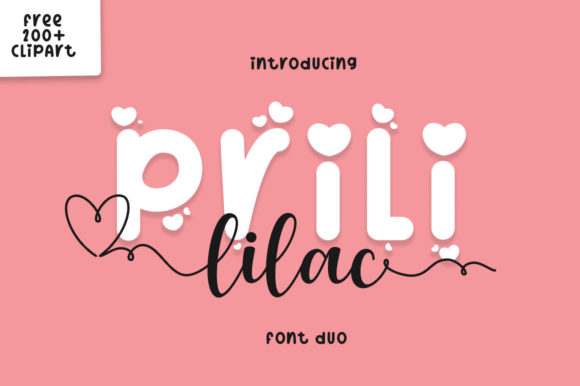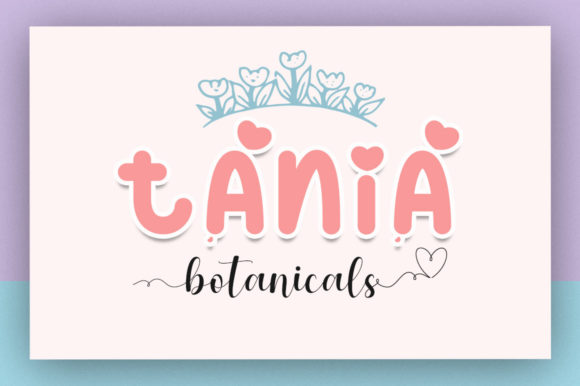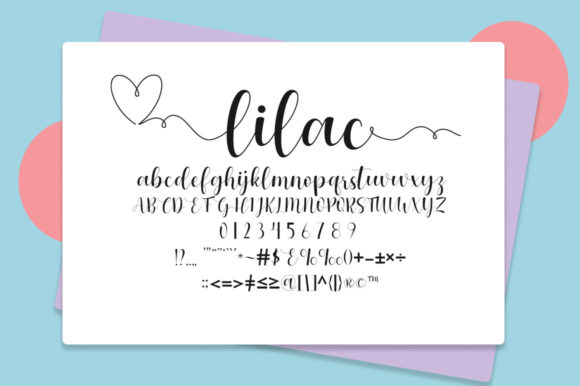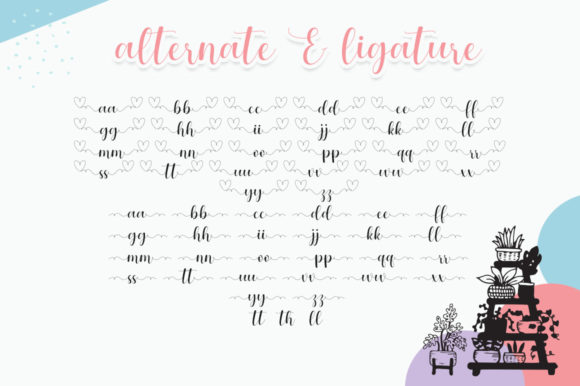
Lilac Prili Font
Lilac Prili is a versatile duo font (script and sans serif). It will add a luxury spark to any design project that you wish to create! This font is PUA encoded which means you can access all of the amazing glyphs and ligatures with ease!